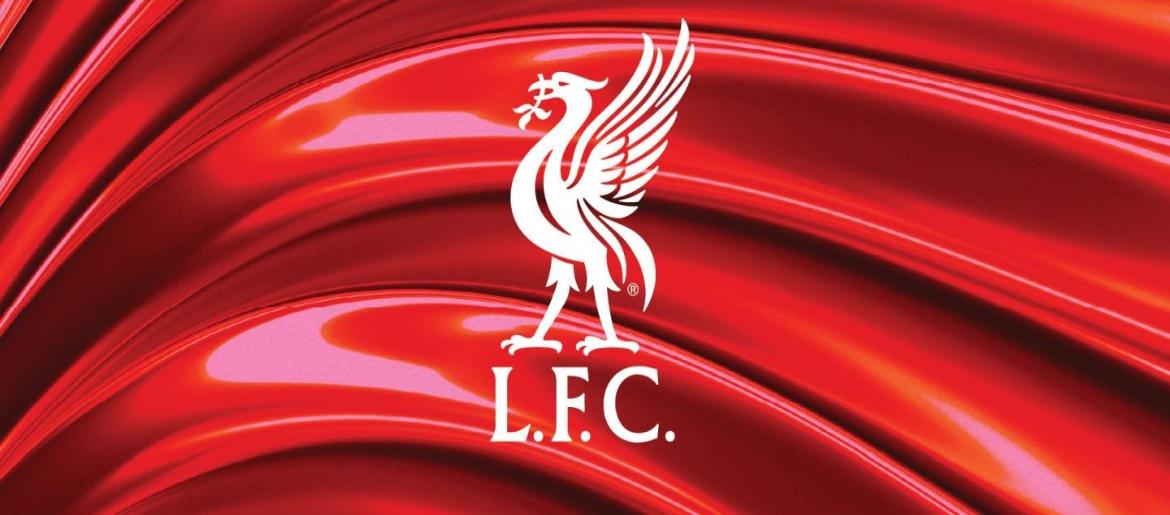
Liverpool Font
1999
The classic Liverpool font used in 1999 is Albertus, a commercial typeface designed by Berthold Wolpe. Its sharp, sculpted letterforms give the club a strong, historic feel. Since Albertus is a paid font, a highly similar free alternative is Reforma, which offers comparable proportions and style for personal use.
New Design
In recent years, Liverpool FC introduced brand-new custom typefaces created exclusively for the club: LFC Sans and LFC Serif. These fonts are inspired by the wings and talons of the Liver bird, giving the visual identity a unified, iconic, and modern appearance. Because these fonts are proprietary, we also found a free alternative that closely resembles the latest Liverpool logo font. You can download it from the link below.
Liverpool FC, founded in 1892, is one of England’s most successful and historic football clubs. Competing in the Premier League, the team is known for its passionate global fanbase, legendary players, and memorable European triumphs. The club’s evolving typography—from Albertus to the bespoke LFC Sans and Serif—reflects its heritage, identity, and commitment to modern branding.